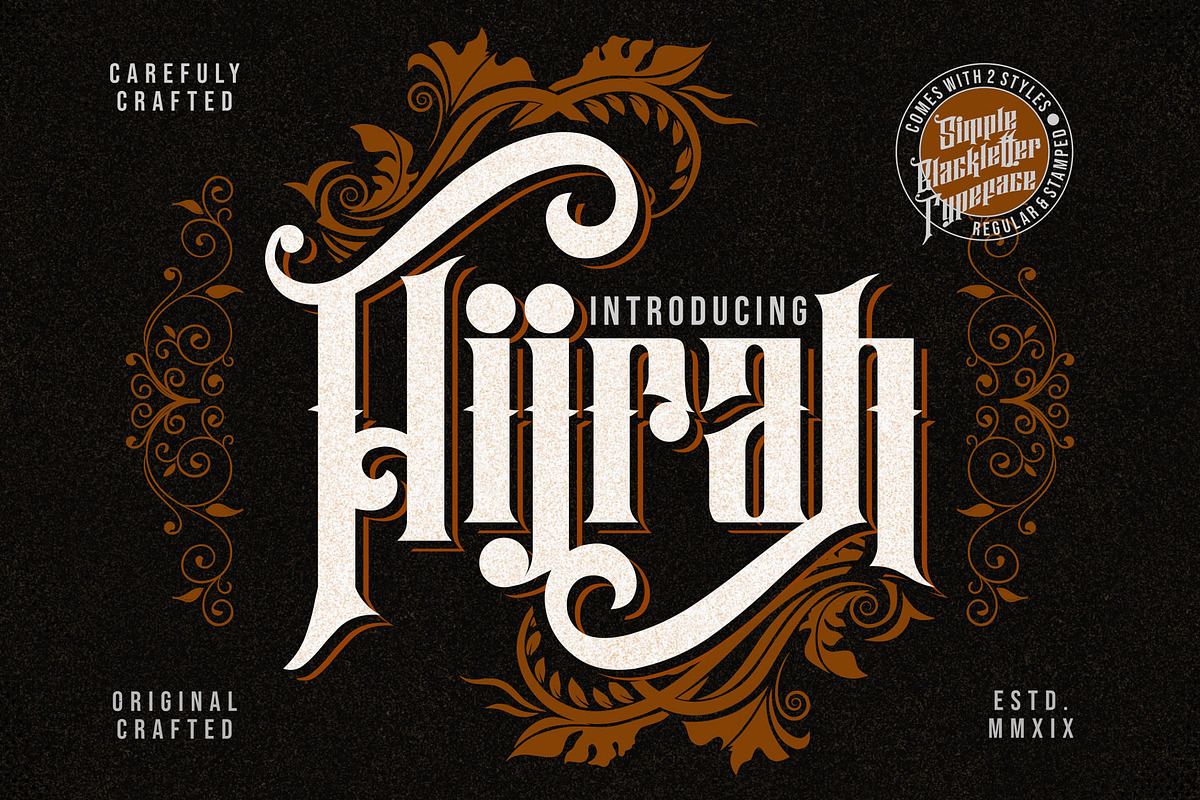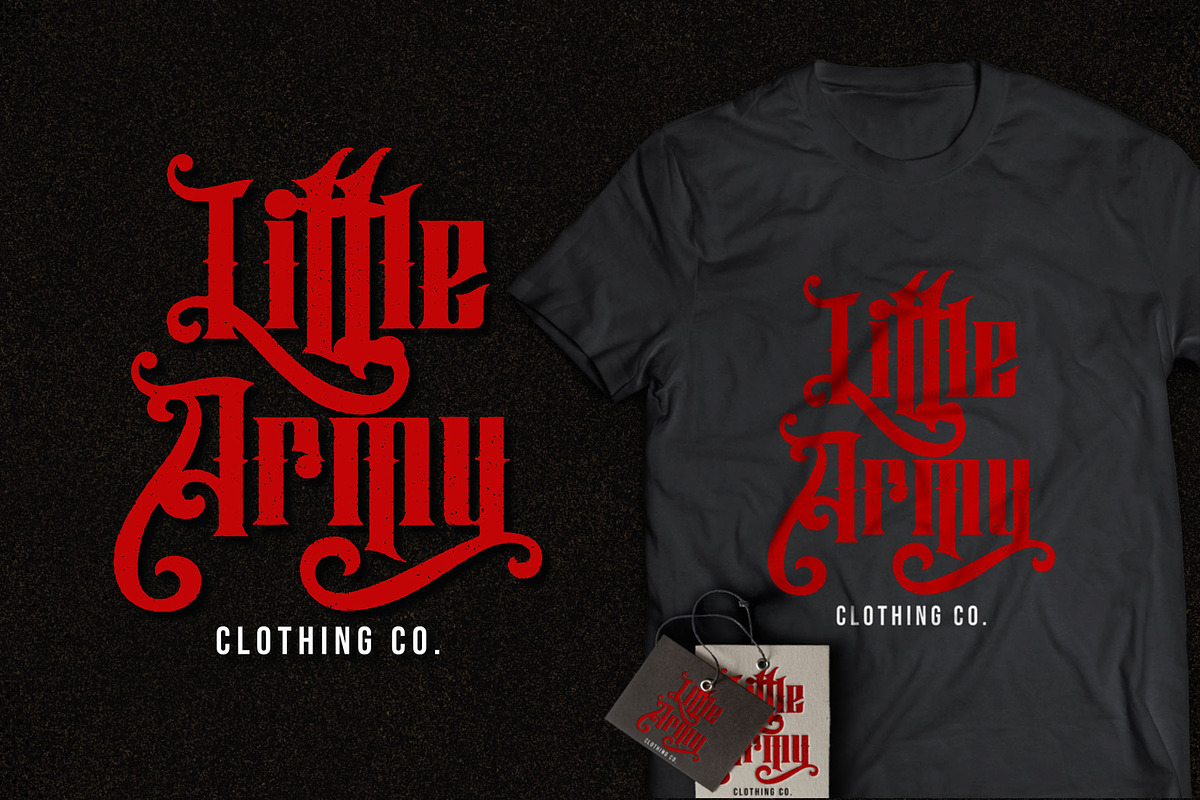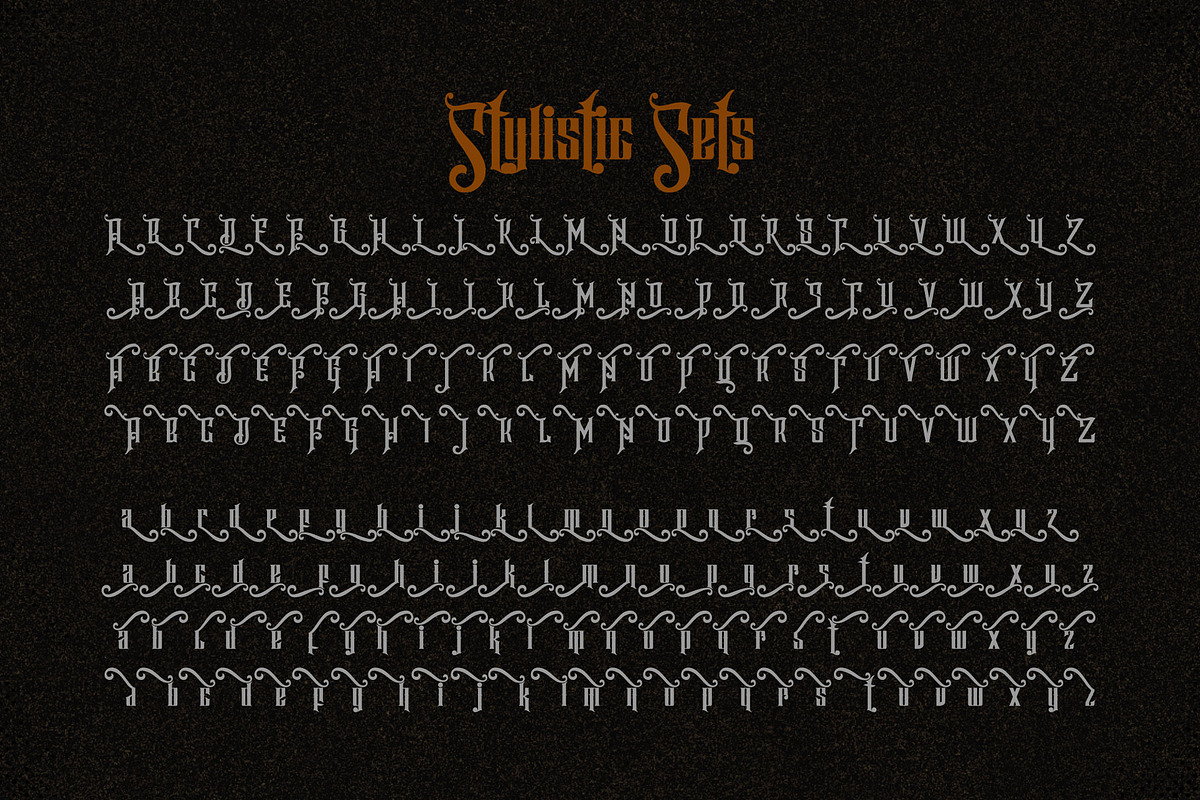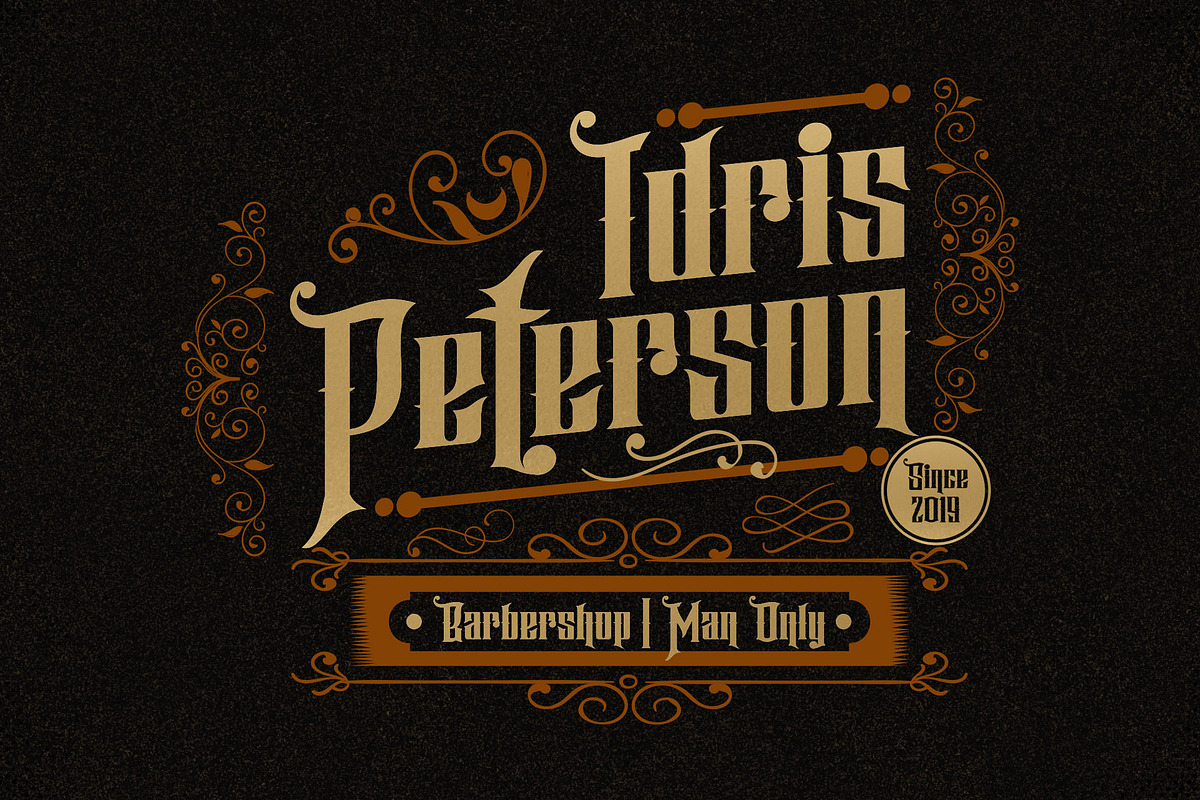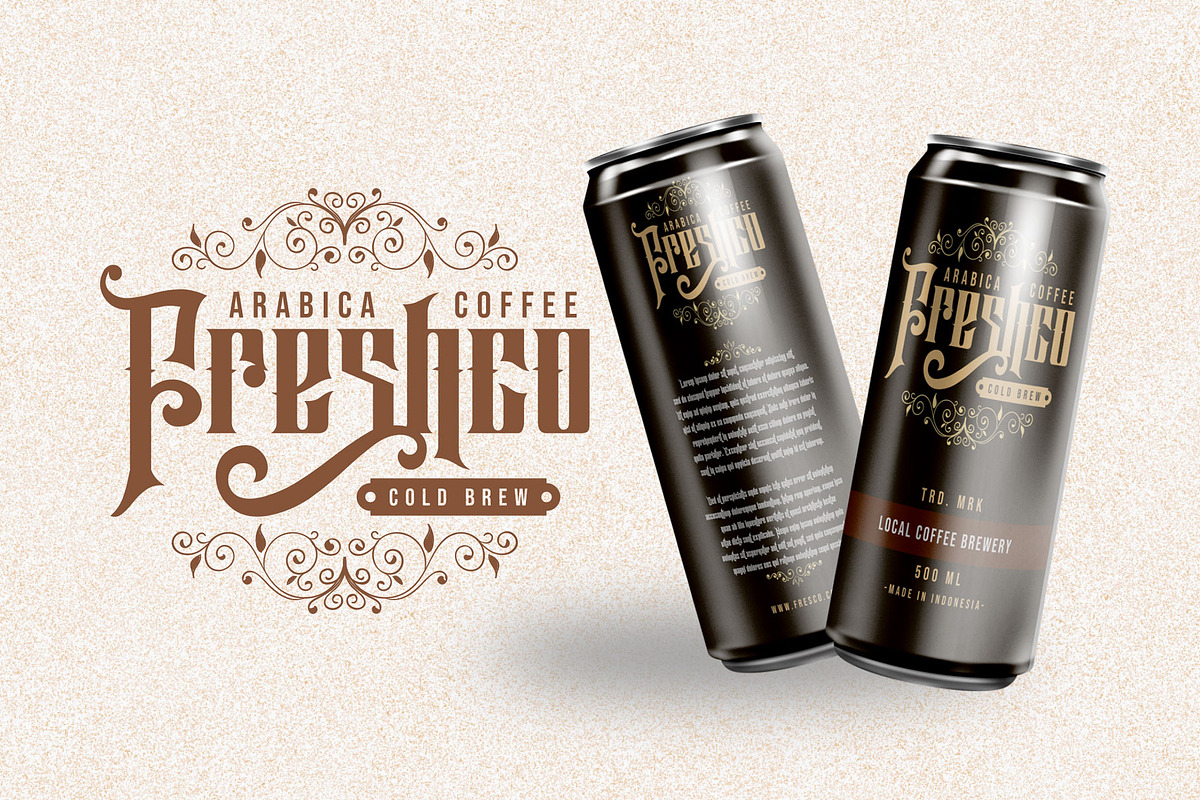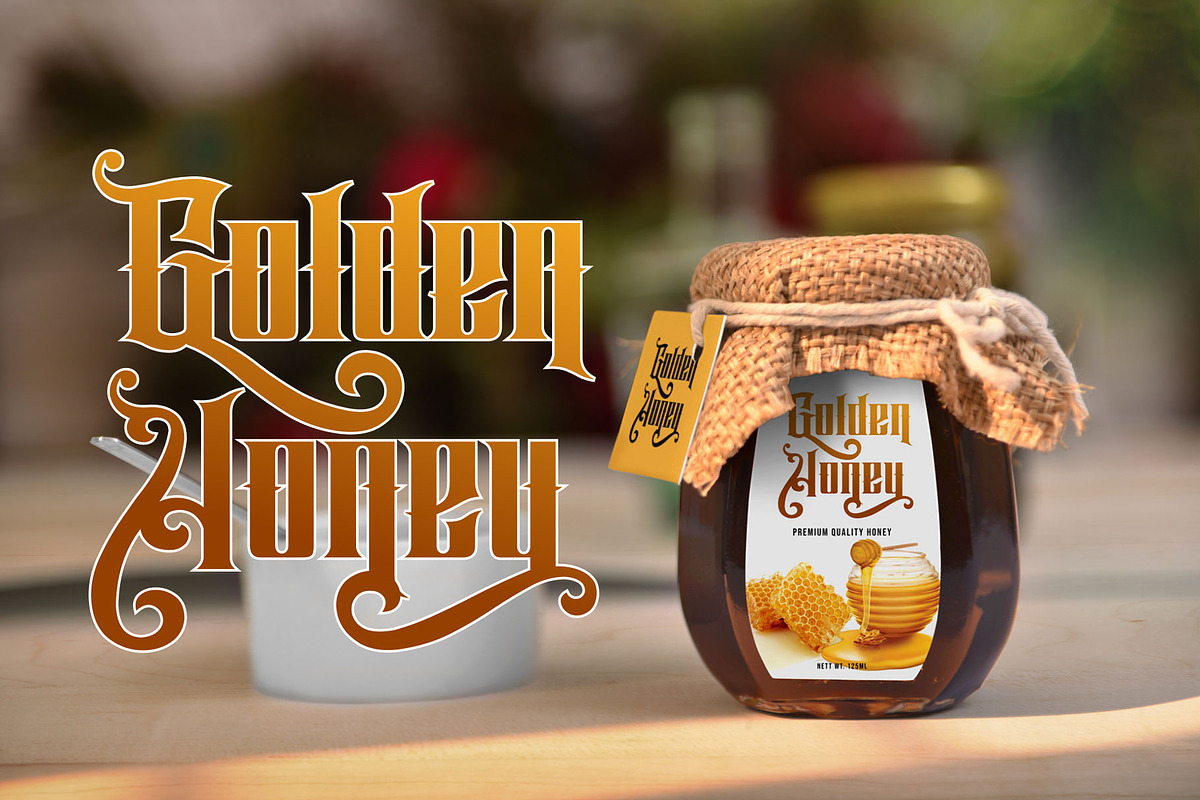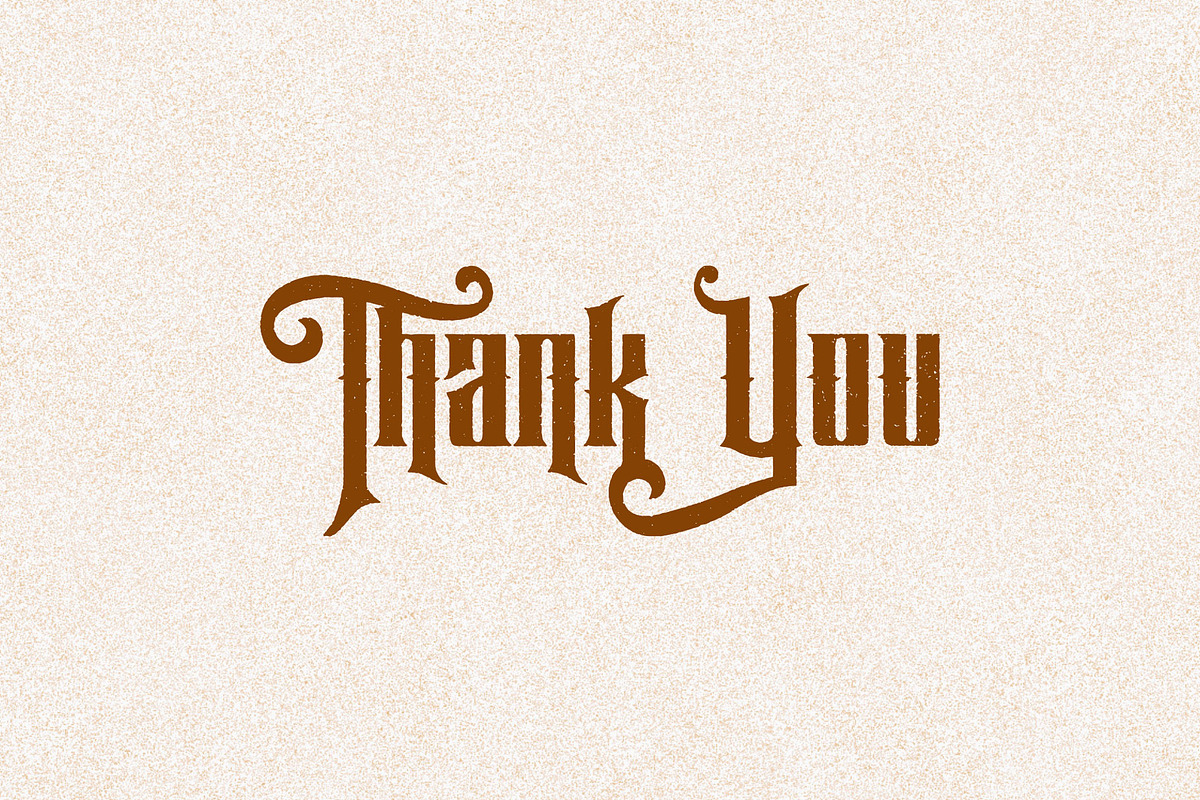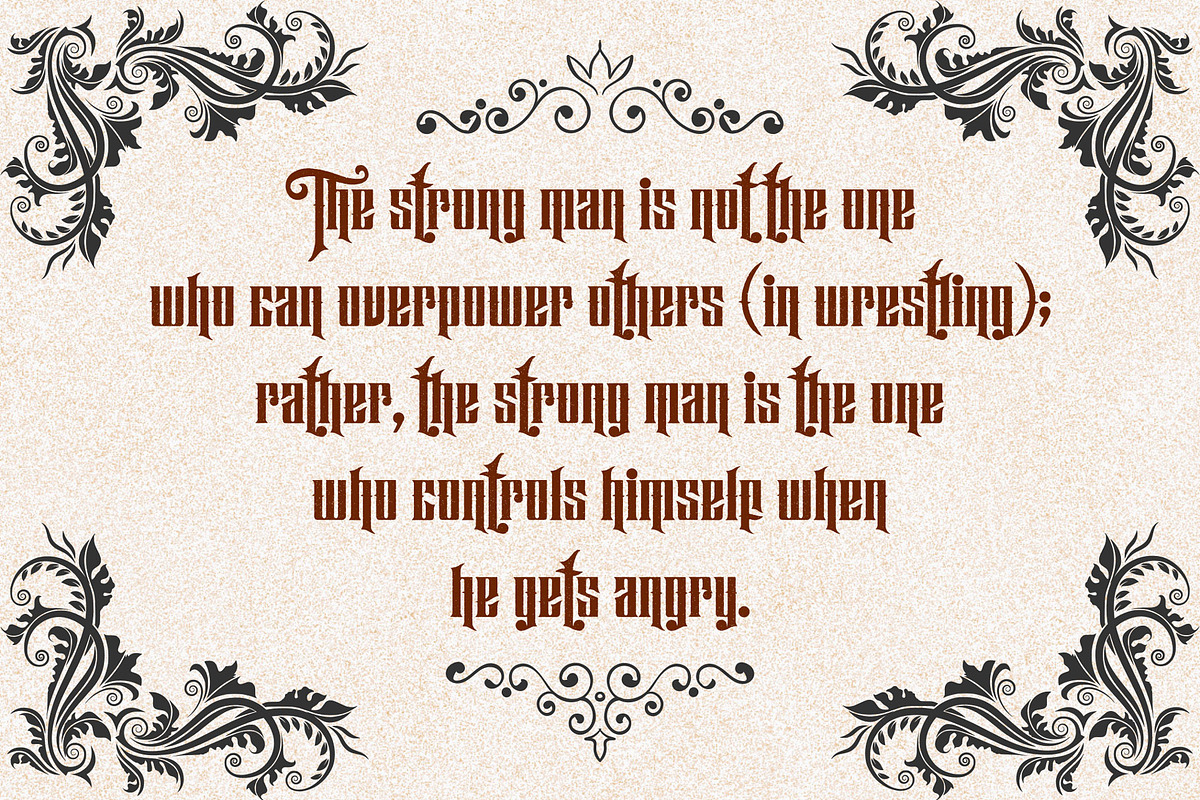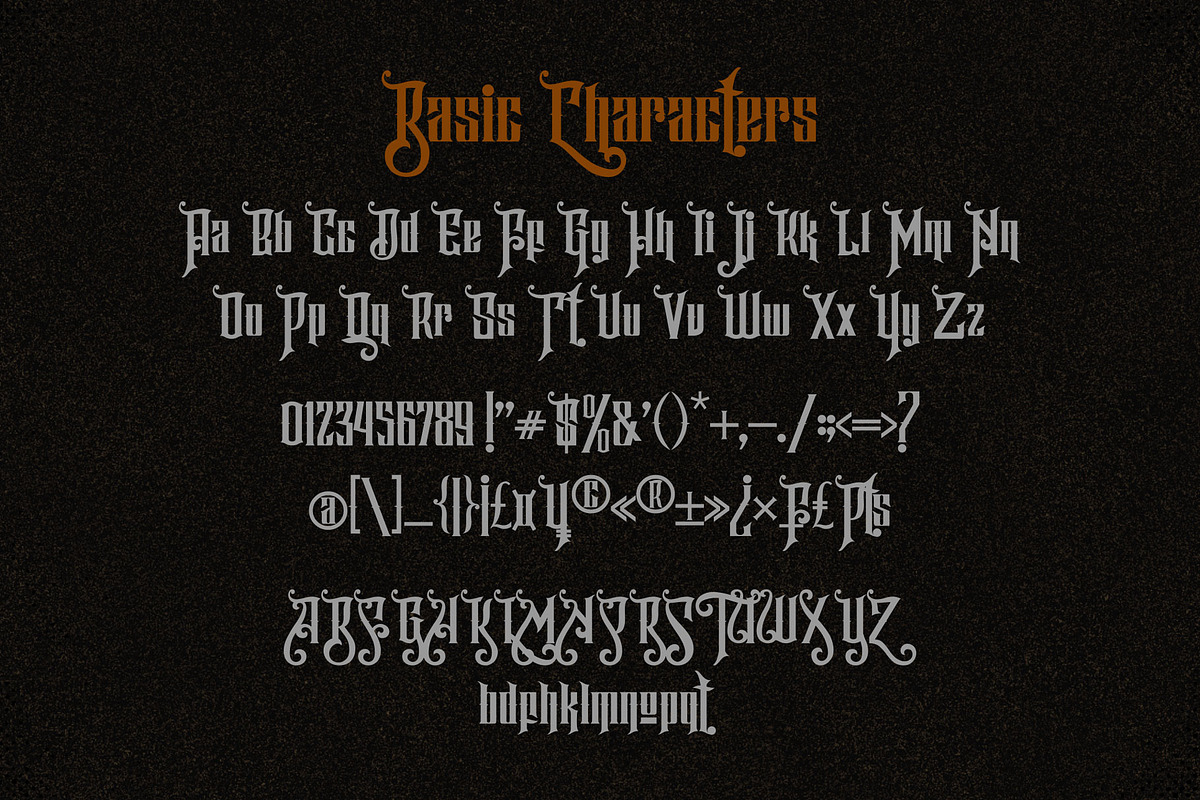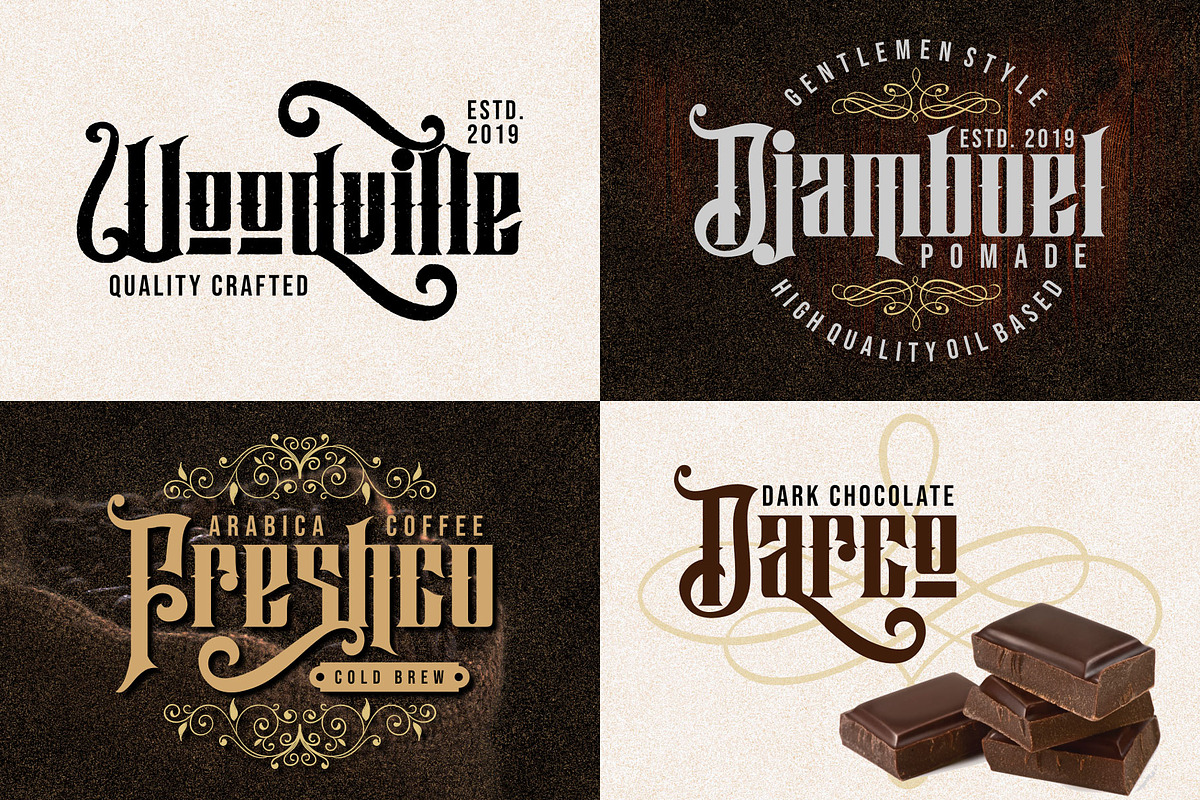
Hijrah
Hijrah! A blackletter font with 2 styles, regular (clean) and textured (stamped). Hijrah font is perfect for logotype, apparel, T-shirt, Hoodie, product packaging, or anything else.
- Supports international languages
- Numerals, punctuations, stylistic alternates, stylistic sets